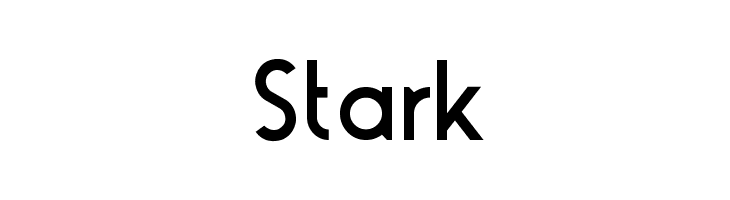
A bold, italicized modern sans-serif font with consistent stroke thickness.
A casual, handwritten font with smooth, flowing strokes.
A bold, playful handwritten font with rounded, energetic characters.
An elegant and decorative serif font with intricate swirls and bold characters.
A modern serif font with balanced proportions and subtle elegance.
A bold, hand-drawn font with a playful and organic style.
A bold, italicized font with a modern, angular design.
A bold, playful font with a hand-drawn, rough-edged style.
A bold, hand-painted font with dynamic, expressive strokes.
A distressed, textured font with a rugged, wintry appearance.
A bold, rounded font with smooth curves and a playful style.
A playful, bold font with rounded, bubbly characters.
A playful and elegant script font with flowing, cursive letters and decorative flourishes.
A bold, geometric font with a modern and clean design.
A bold, modern monospaced font with geometric shapes and uniform character width.
A playful, marker-style handwritten font with smooth, rounded strokes.
A modern, italic sans-serif font with clean lines and excellent readability.
A decorative, jungle-themed font with bold letters and intricate foliage designs.
A bold, textured 3D font with a rugged, hand-drawn style.
A bold, textured font with a vintage, distressed appearance.
A bold, futuristic font with a 3D shadow effect.
A playful, handwritten font with a modern and casual style.
A bold, playful font with outlined, cartoon-like characters.